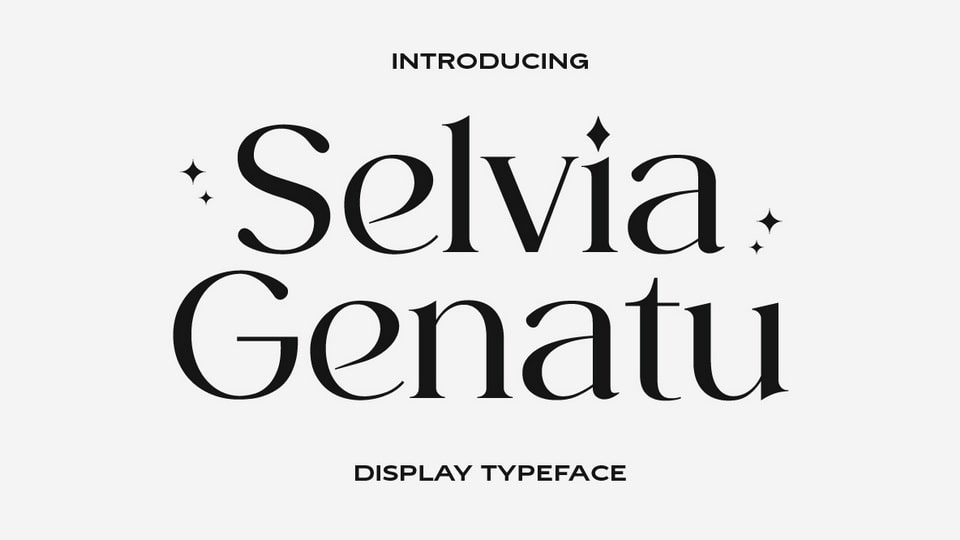
Download Selvia Genatu font, an elegant serif typeface that combines classic charm with modern flexibility. With its smooth curves, this font creates stunning visual harmony.
Designer: Yukita Creative